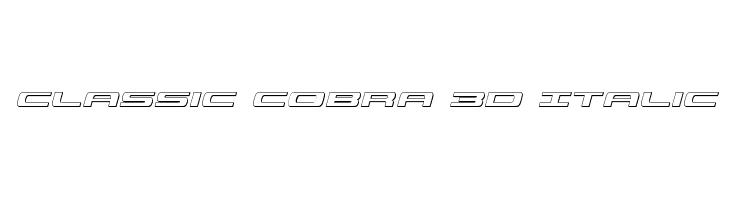
A bold, 3D italic font with a futuristic and dynamic style.
A bold, futuristic font with geometric outlines and a three-dimensional effect.
A bold, futuristic font with sharp angles and outlined characters.
A bold, italicized font with a modern, dynamic style.
A bold, italicized font with a futuristic and dynamic style.
A bold, modern font with a futuristic and geometric design.
A bold, geometric font with a modern and powerful aesthetic.
A bold, italicized font with a futuristic and sporty design.
A bold, italicized font with a modern, dynamic style.
A futuristic, chrome-like font with geometric shapes and sharp angles.